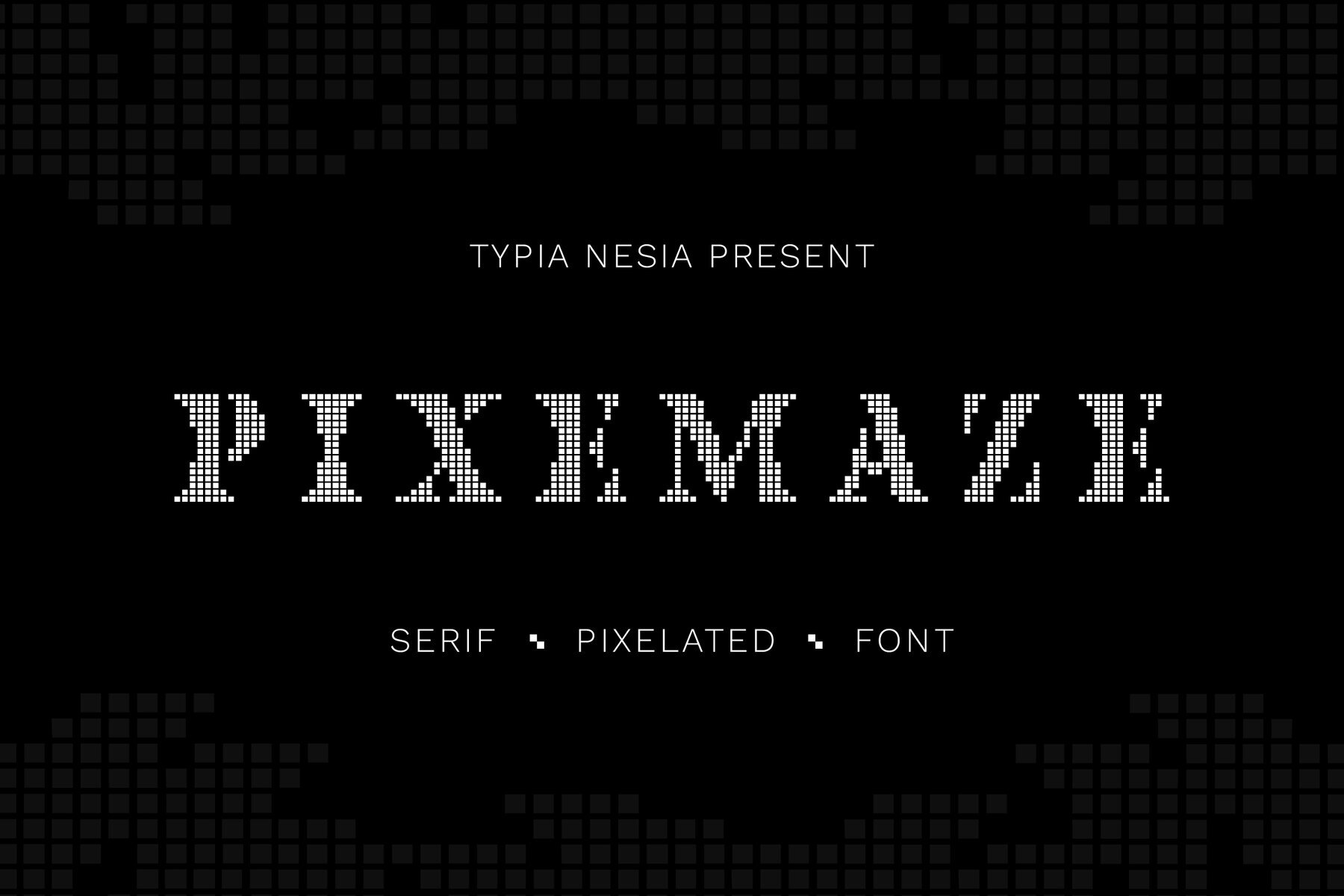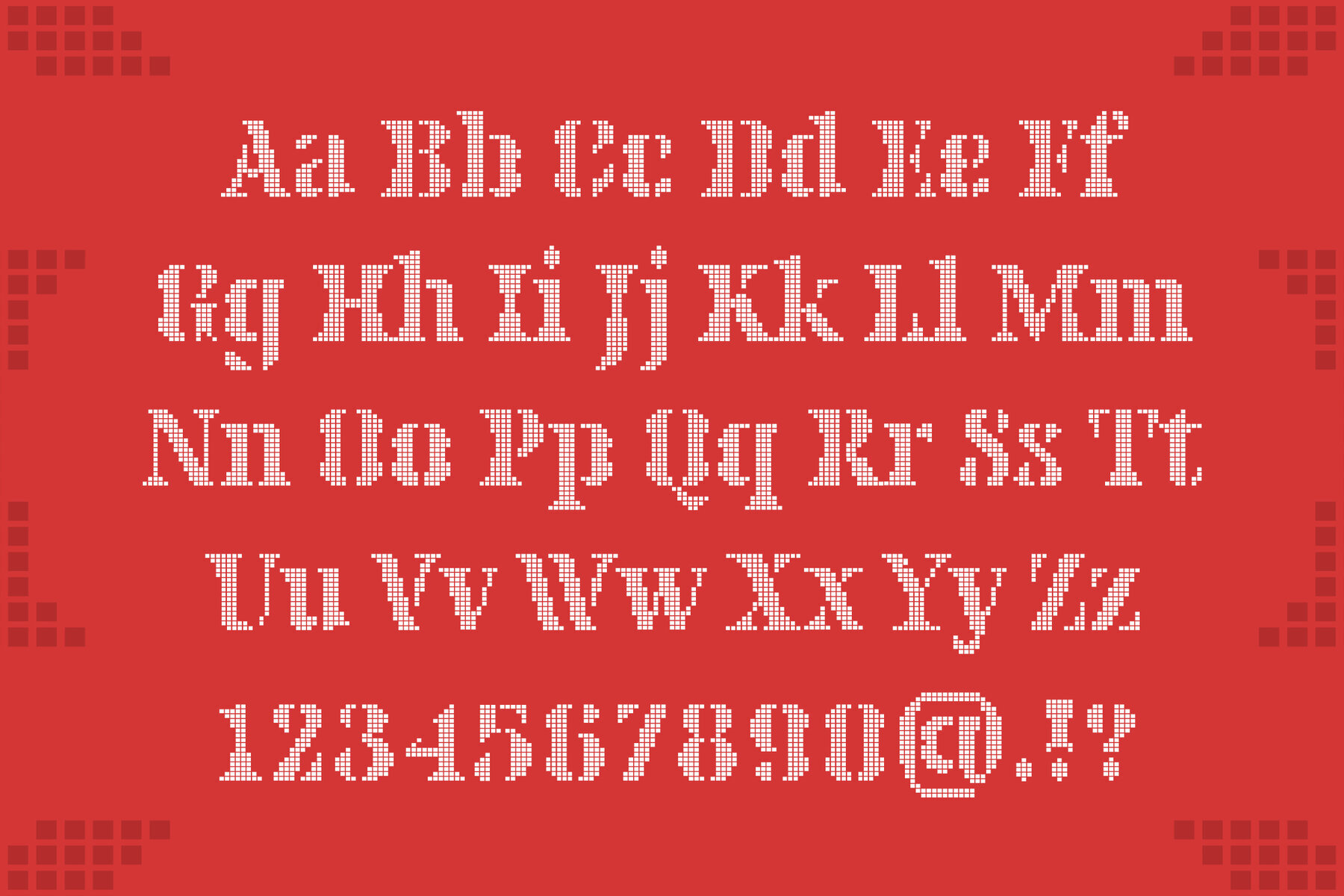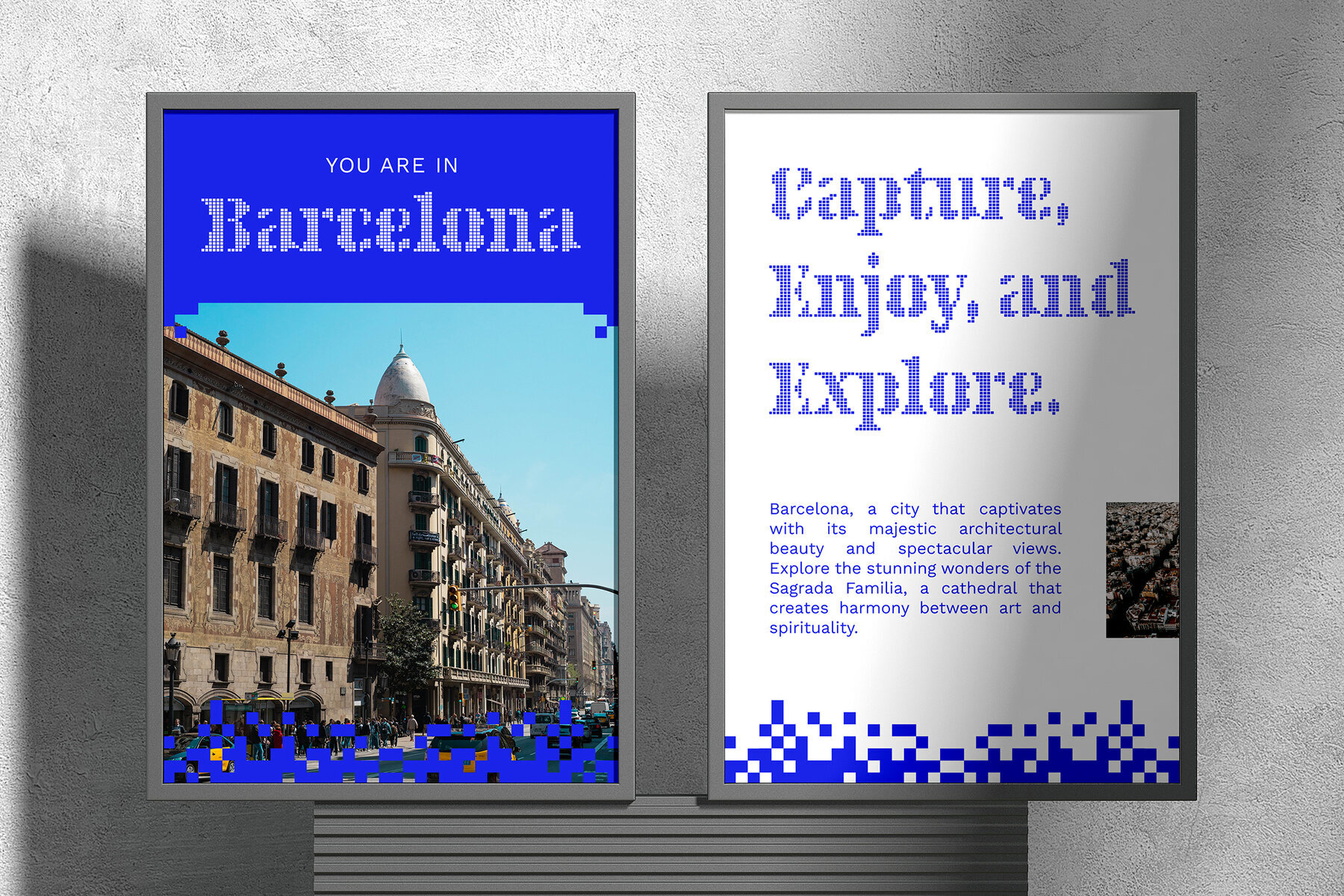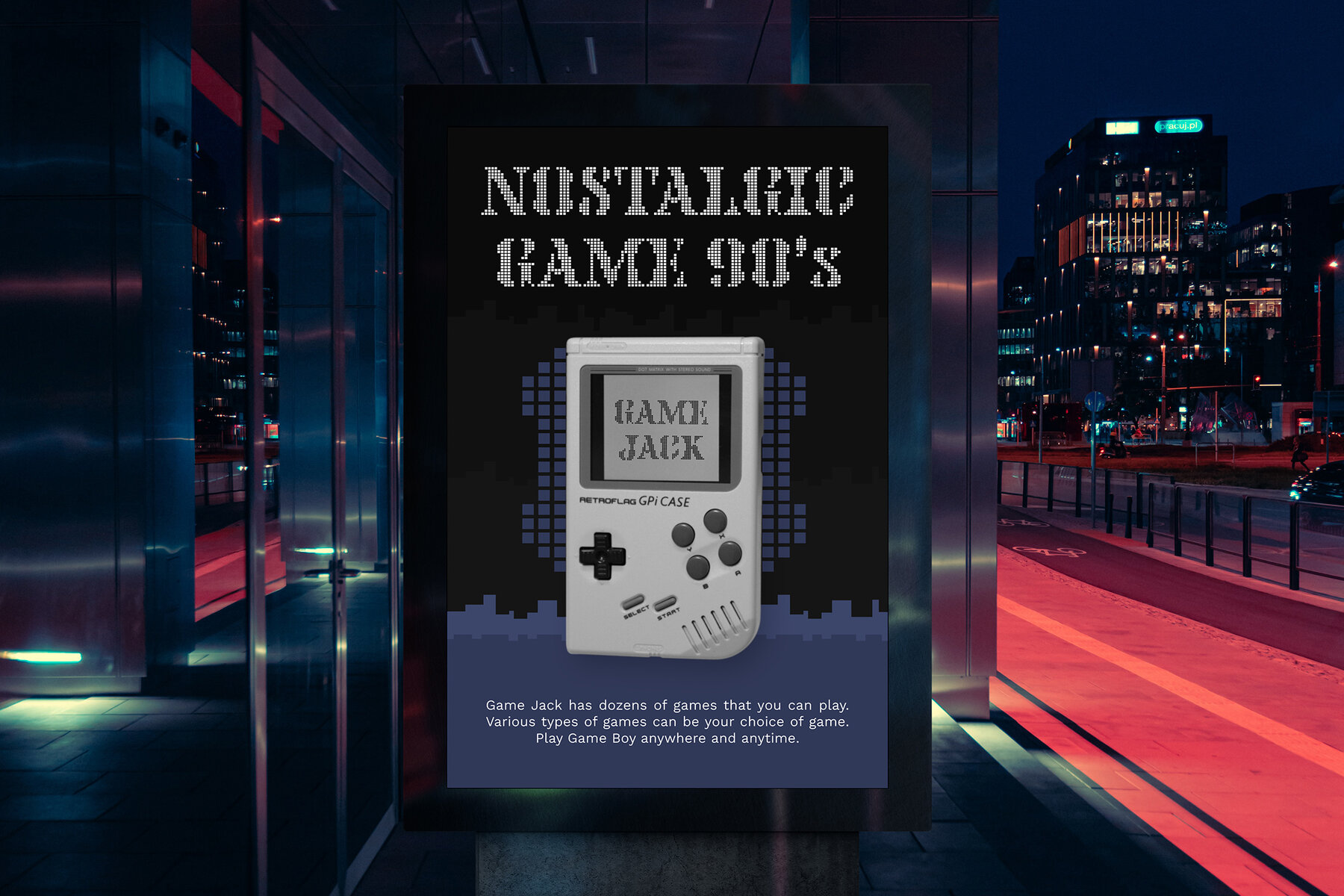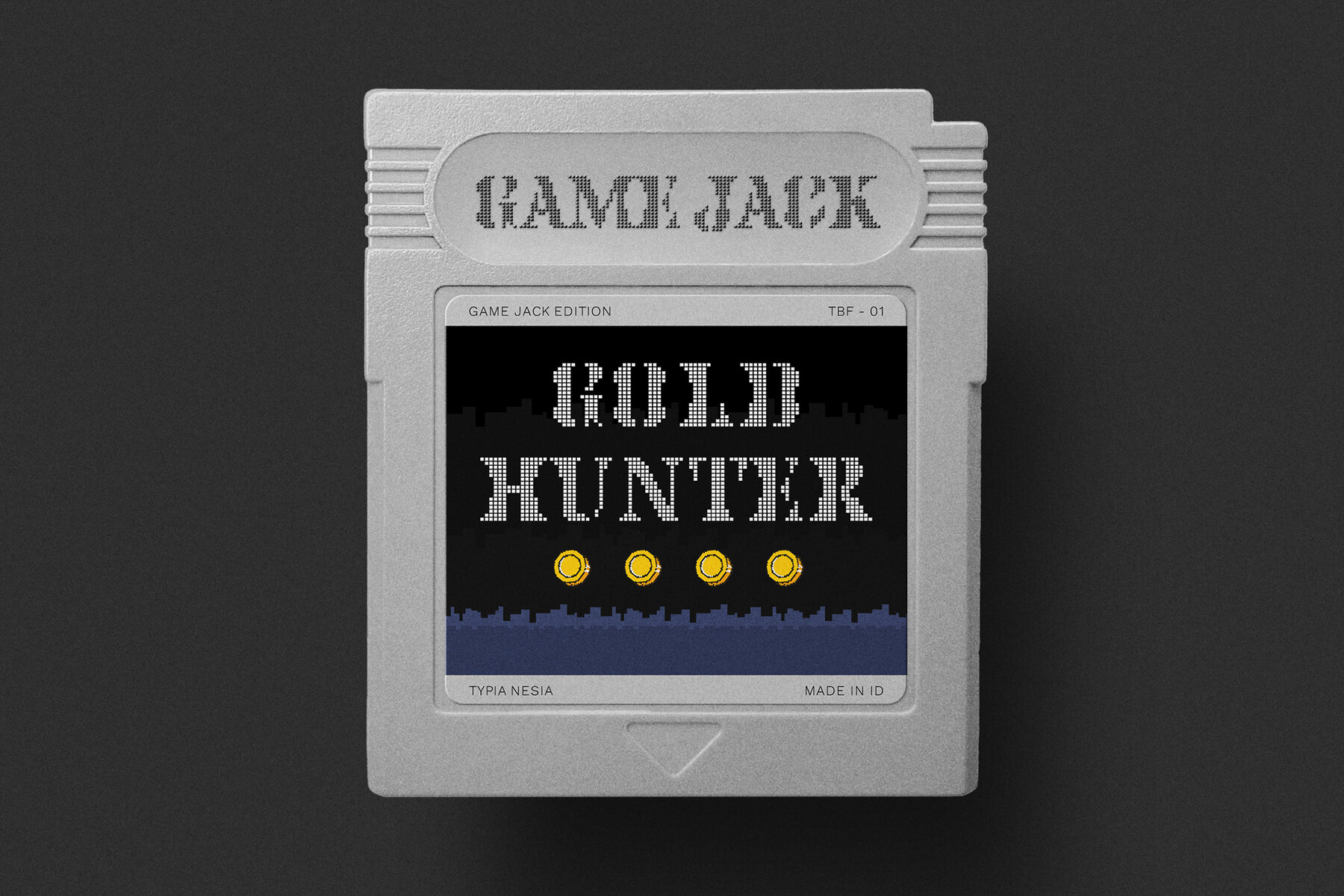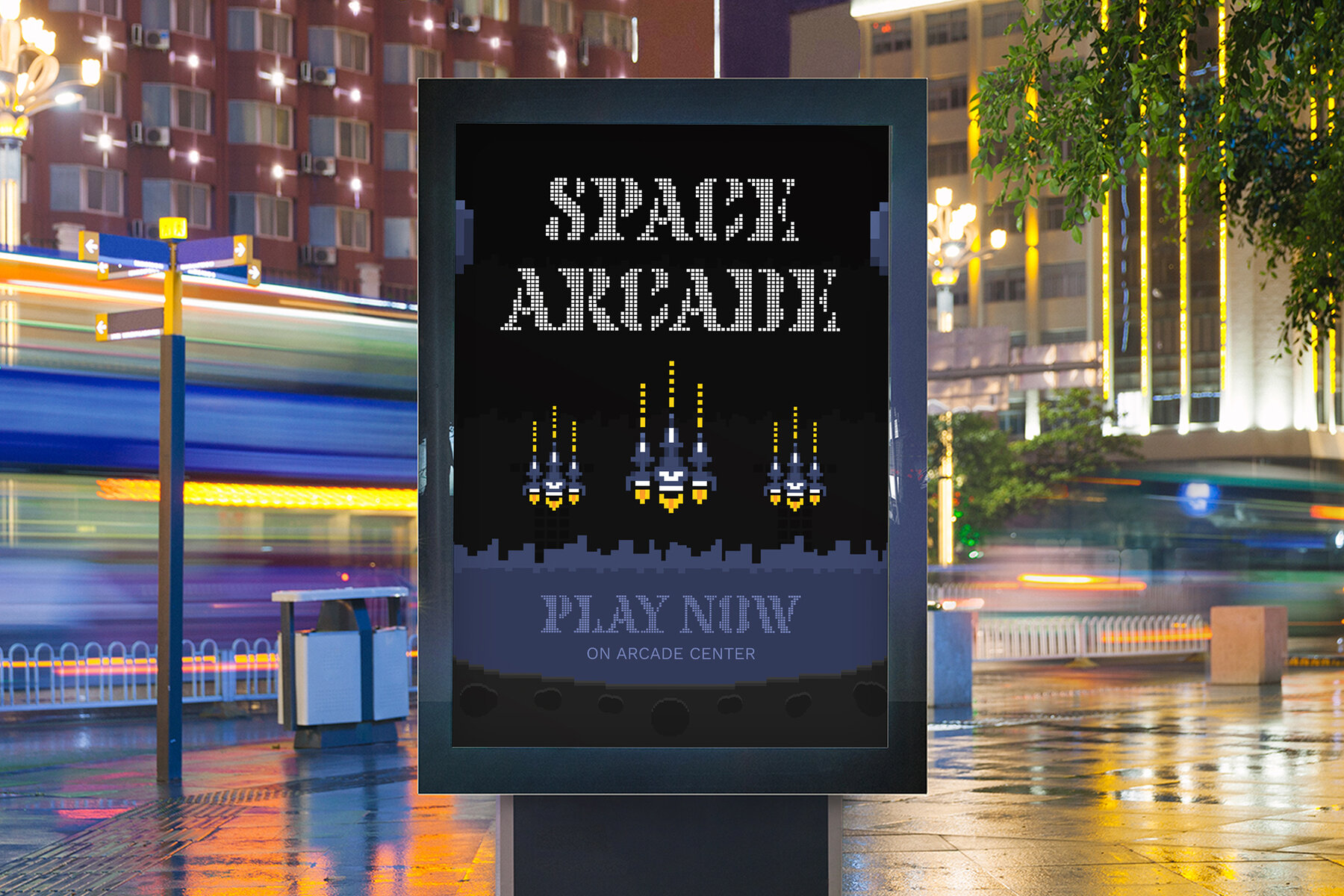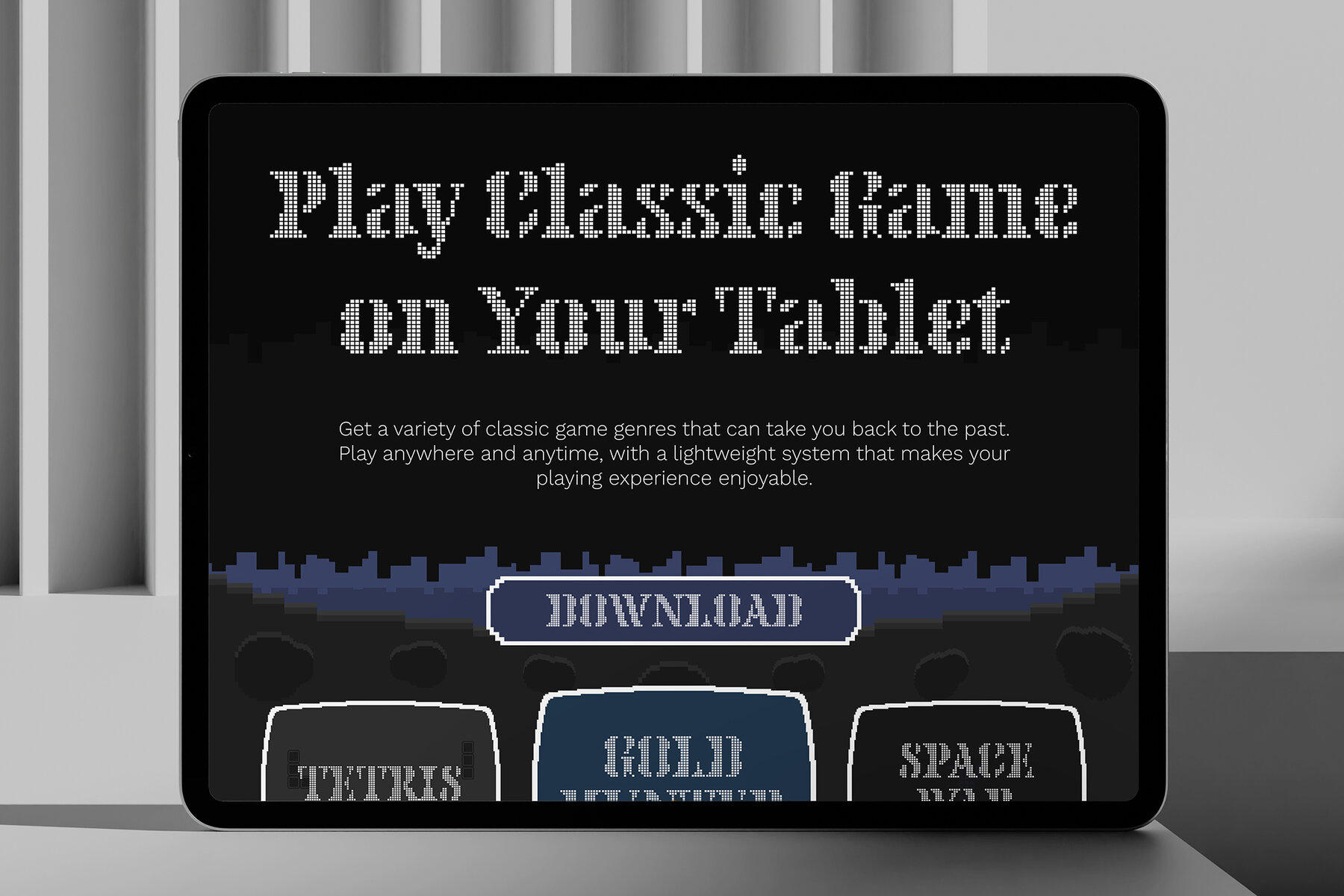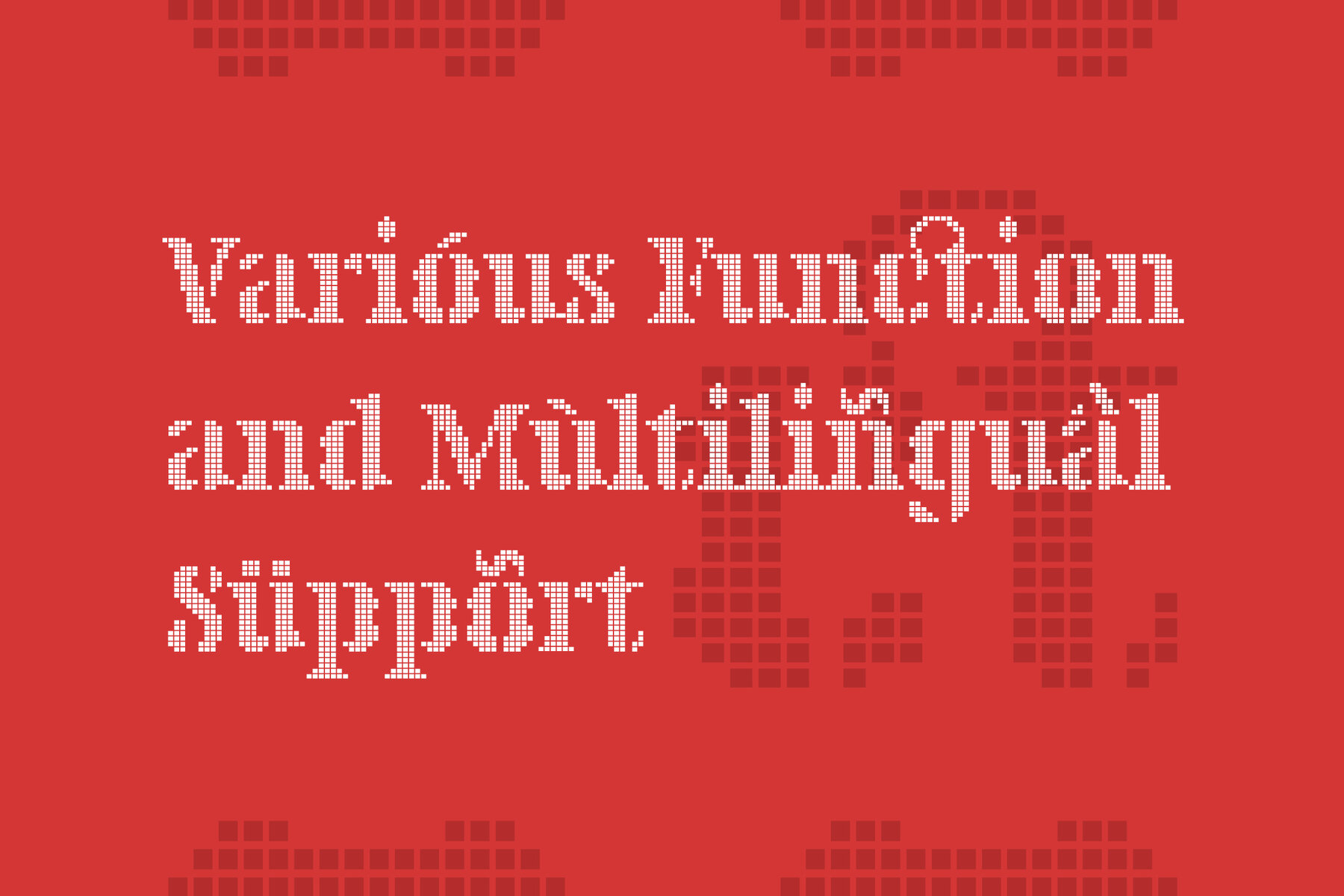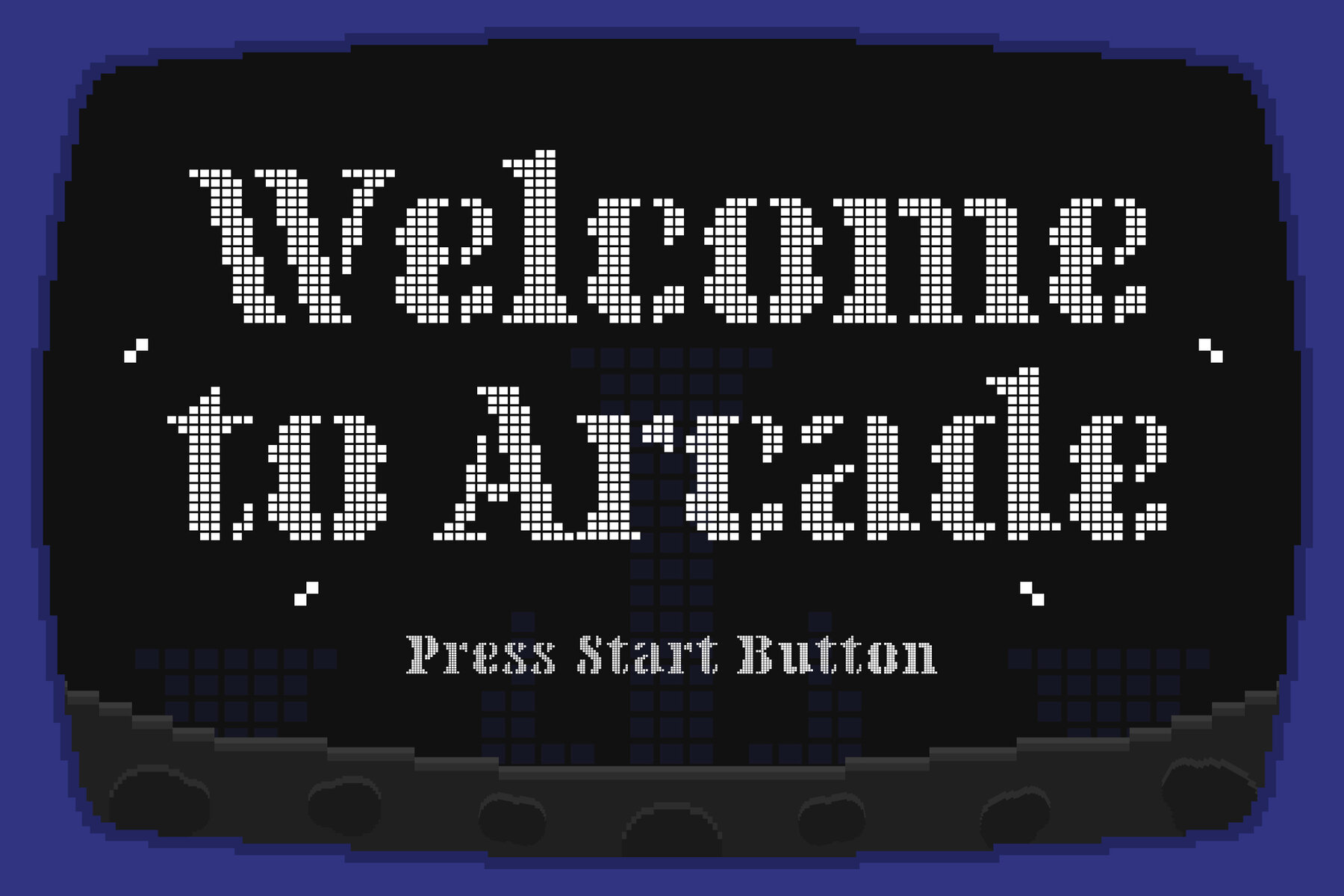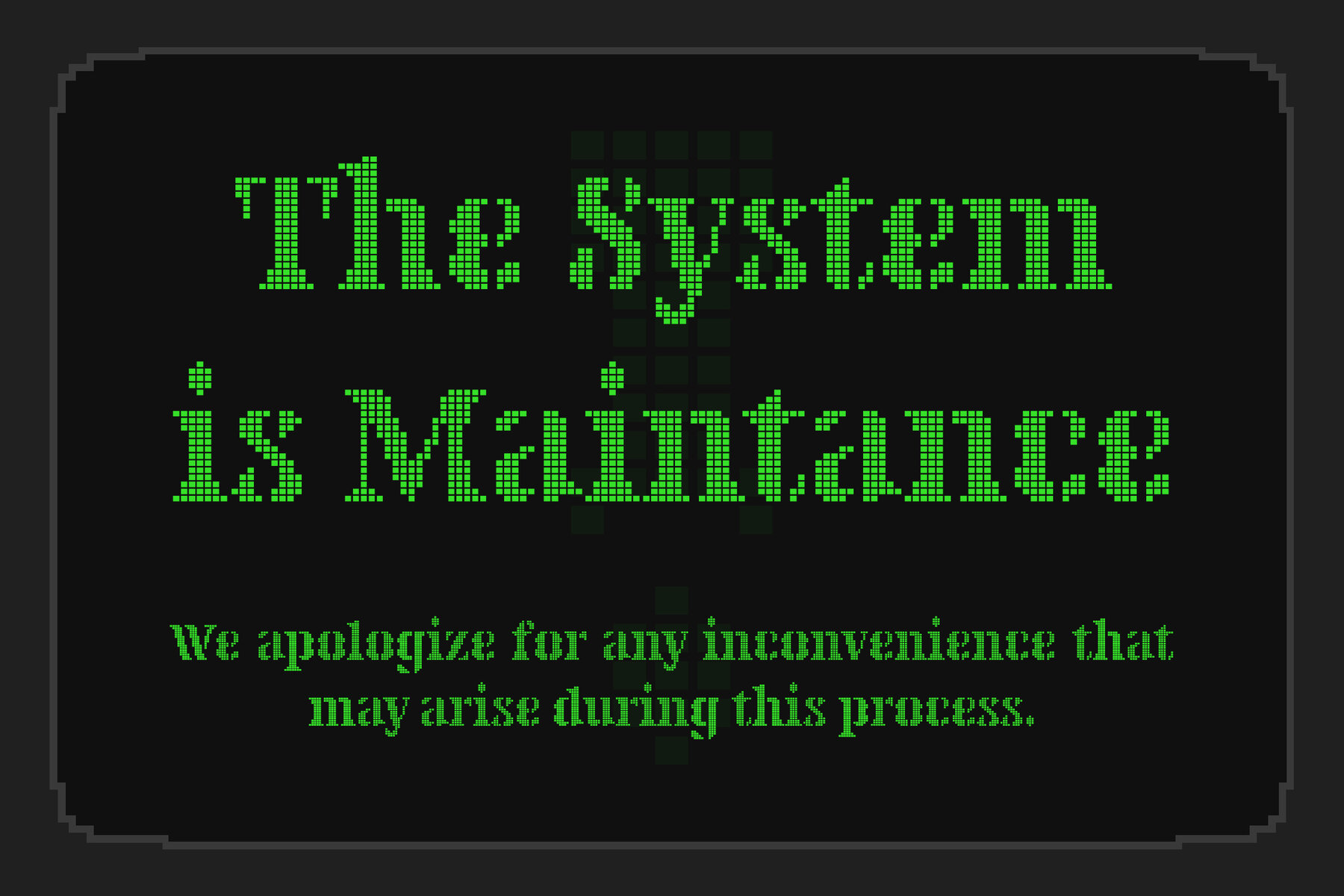
Pixemaze Font
Pixemaze Regular
Pixemaze is a serif pixelated font that brings a unique blend of structure and playfulness. This font style is characterized by pixel precision, adding a distinct digital aesthetic to your projects. Tailored for digital and pixel art projects, Pixemaze is perfect for digital gaming, retro designs, website design, tech and coding blogs, video game development, educational materials for kids, email signatures, use the font in email signatures to add a pixelated and creative touch to professional communications. You can also apply the font for digital comics or graphic novels for a pixelated and visually distinctive storytelling style and any application where a pixelated serif font can elevate the visual experience. Its distinctive style adds a touch of nostalgia with a modern twist. Pixemaze comes with ligatures, enhancing the seamless integration of characters. The font includes a comprehensive set of uppercase and lowercase letters, punctuation marks, numerals, alternates for creative flexibility, and multilanguage support for a global audience.